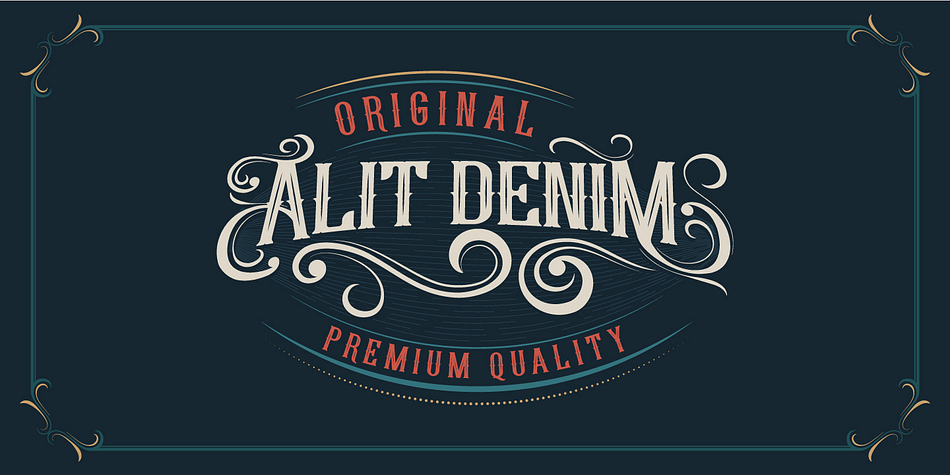
Young Heart
Young Heart is a dingbat, western and display serif font family. This typeface has three styles and was published by Alit Design.
Introducing Young Heart Typeface western style display font.
The family includes OpenType features with Stylistic Alternates. To access the alternate glyphs, you need a program that supports OpenType features such as Adobe Illustrator CS and Adobe Indesign.
You can use this font for various purposes. such as logo, t-shirt, posters, lable, letterhead, book cover and etc.
Foundry Alit Design